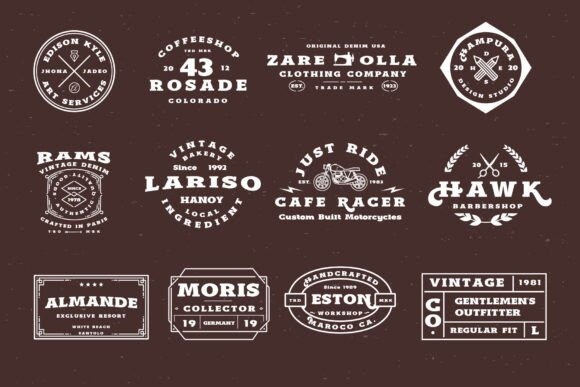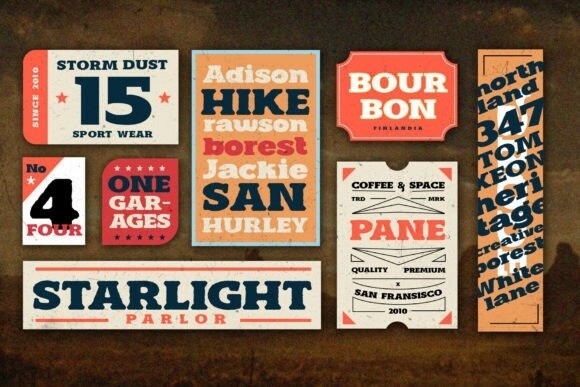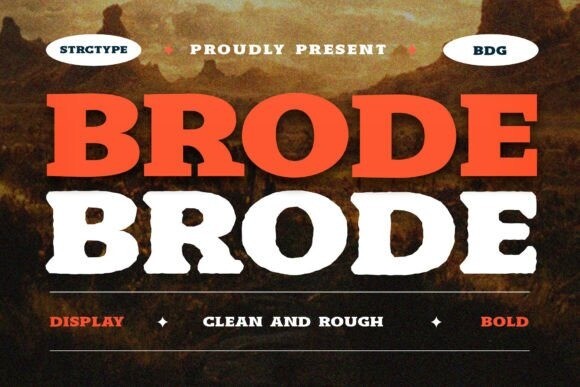
Brode Font
Brode Font is a display slab serif font with 2 styles **clean and rough**, that looks bold and wide, and also comes with alternative characters that are created for adding an alternative uppercase decor of the letters. and it looks right on every character we’ve made. Stylistic alternates allow versatile design options and works. Perfect for headlines, logos, branding, emblems, enamel, adventure tone, posters, packaging, t-shirt, presentation, and much more